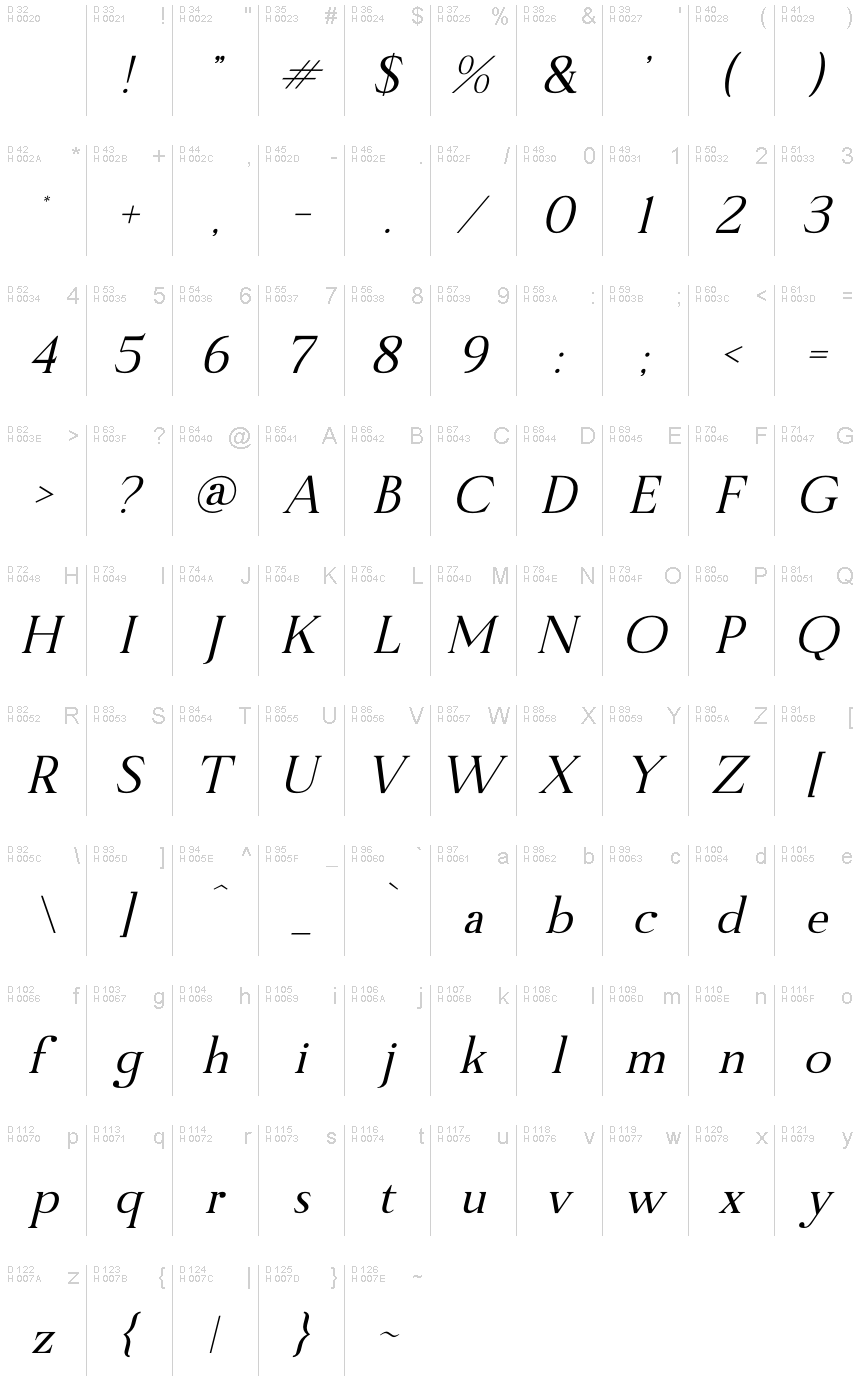
Manfitte Italic
Manfitte Italic, a captivating serif font created by Storytype Studio, exudes a blend of classic elegance and modern flair. Its refined, flowing strokes and subtle nuances evoke a sense of timeless sophistication, making it a true standout in the typographic realm. The font's intricate details and balanced proportions lend a touch of sophistication to any design, effortlessly elevating the visual experience.
With its versatile nature, Manfitte Italic can seamlessly adapt to a wide range of applications, from high-end editorial layouts to sophisticated branding and packaging designs. Its distinctive character and legibility make it an excellent choice for crafting impactful headlines, captivating body text, and eye-catching typographic compositions that leave a lasting impression.